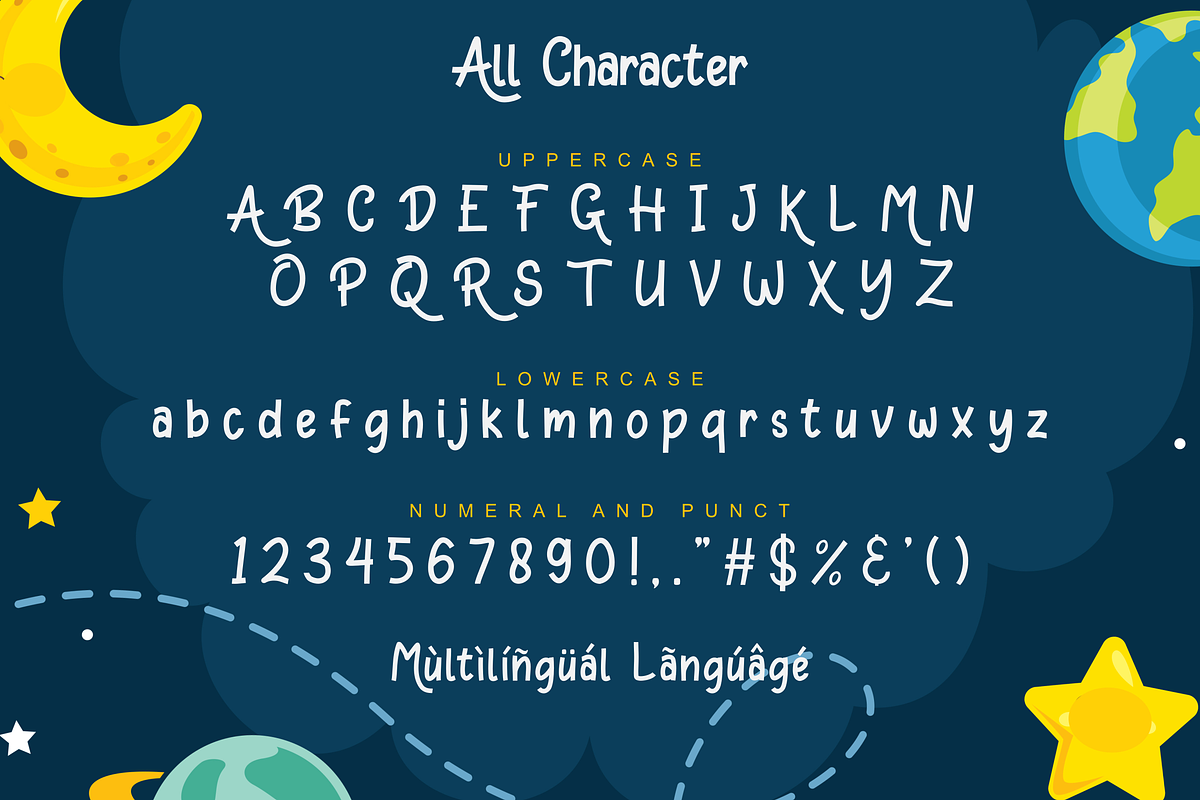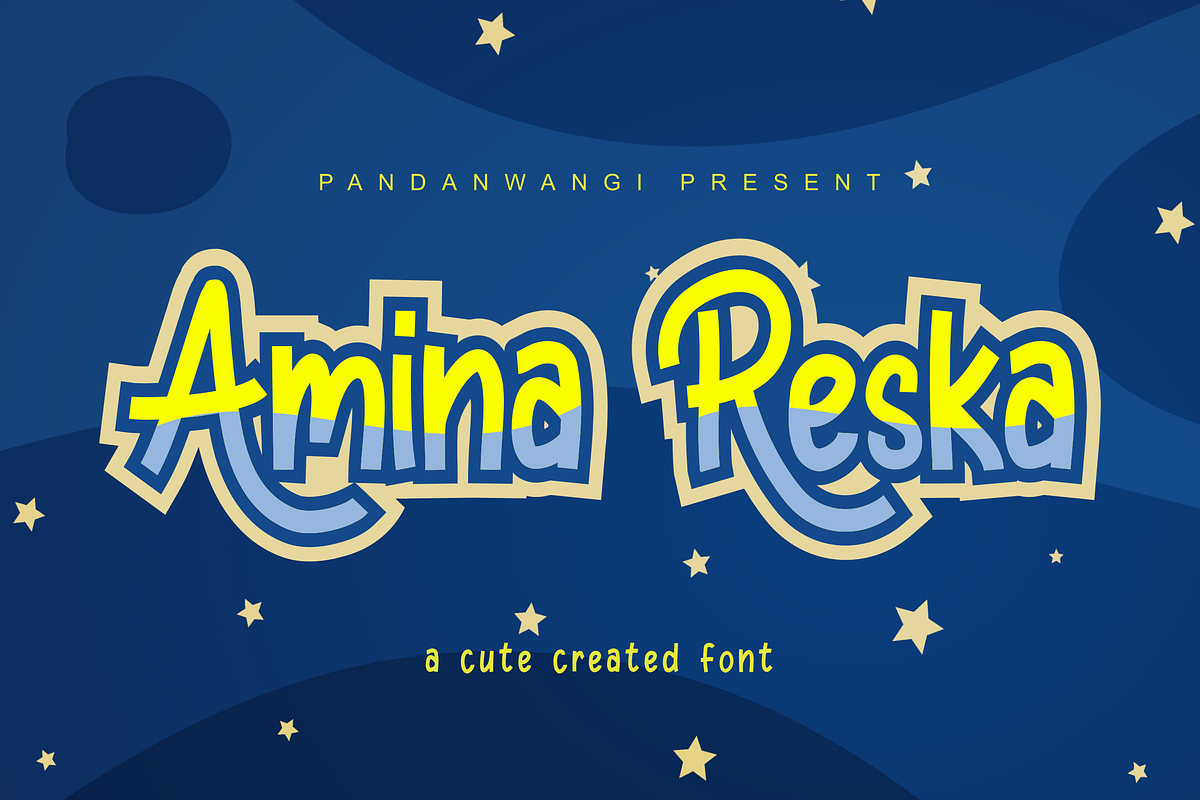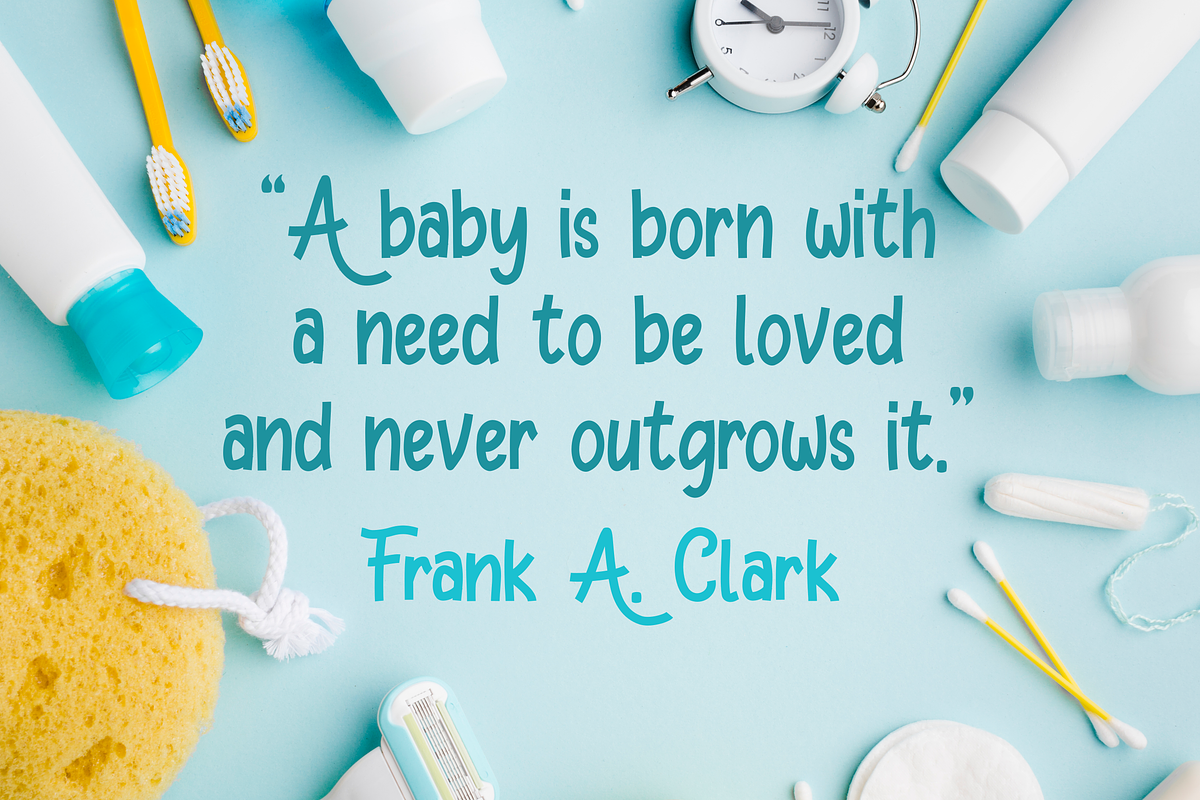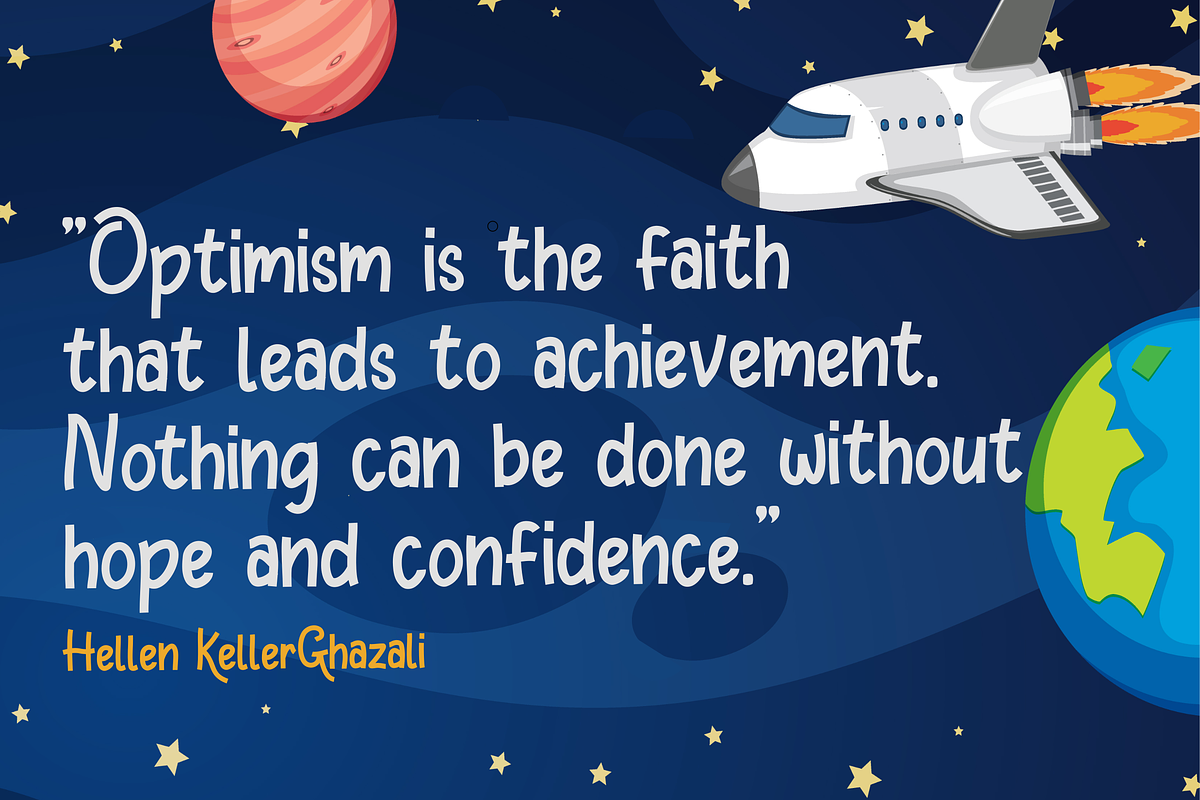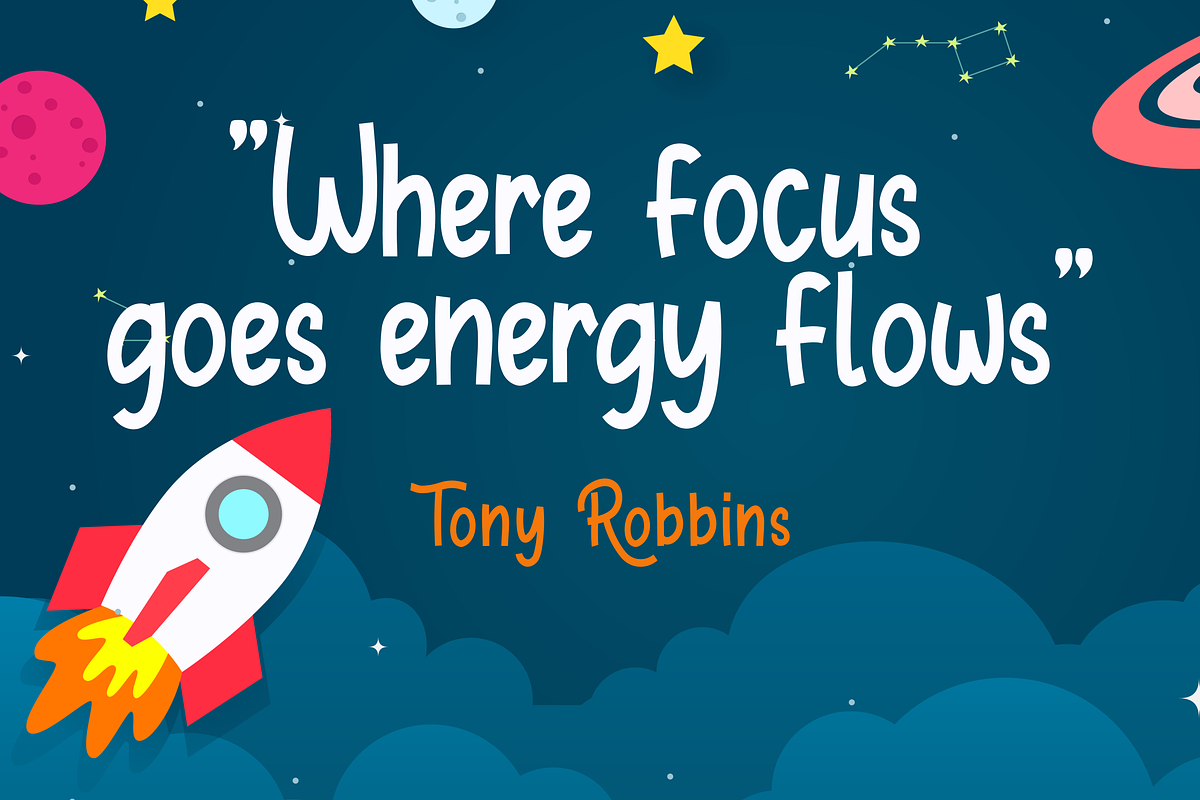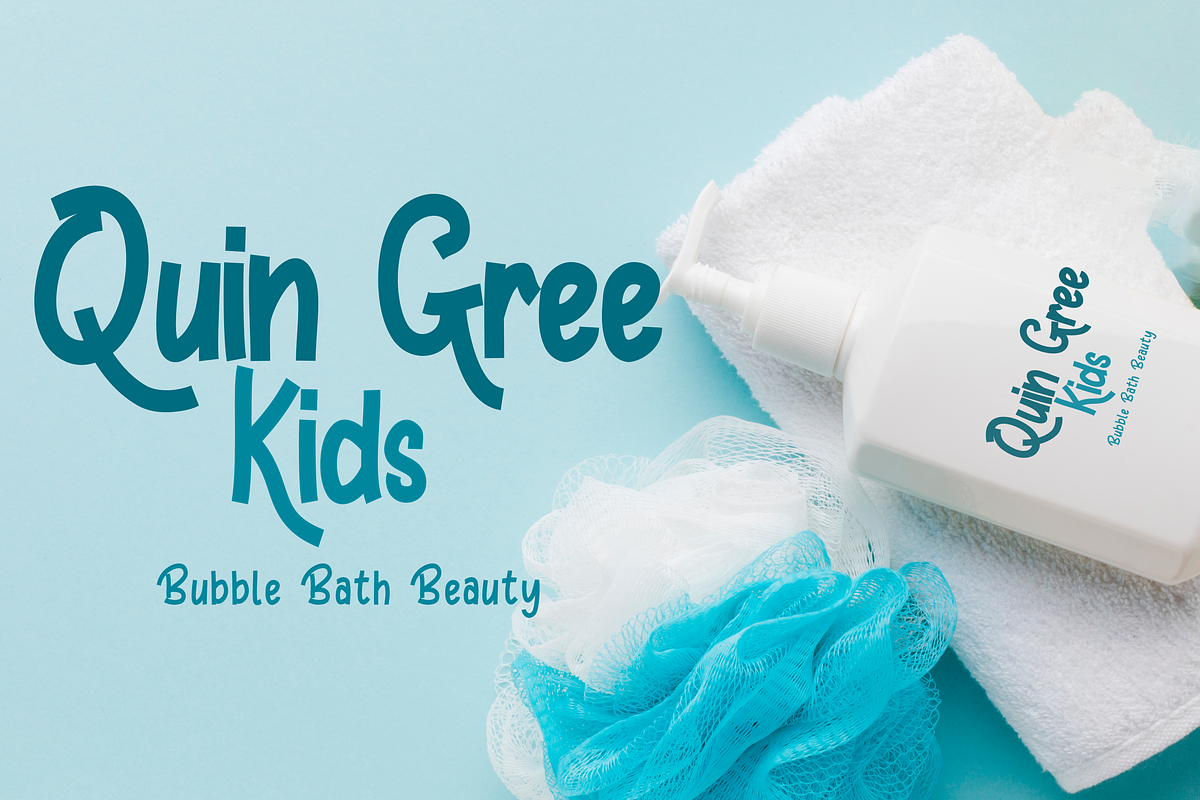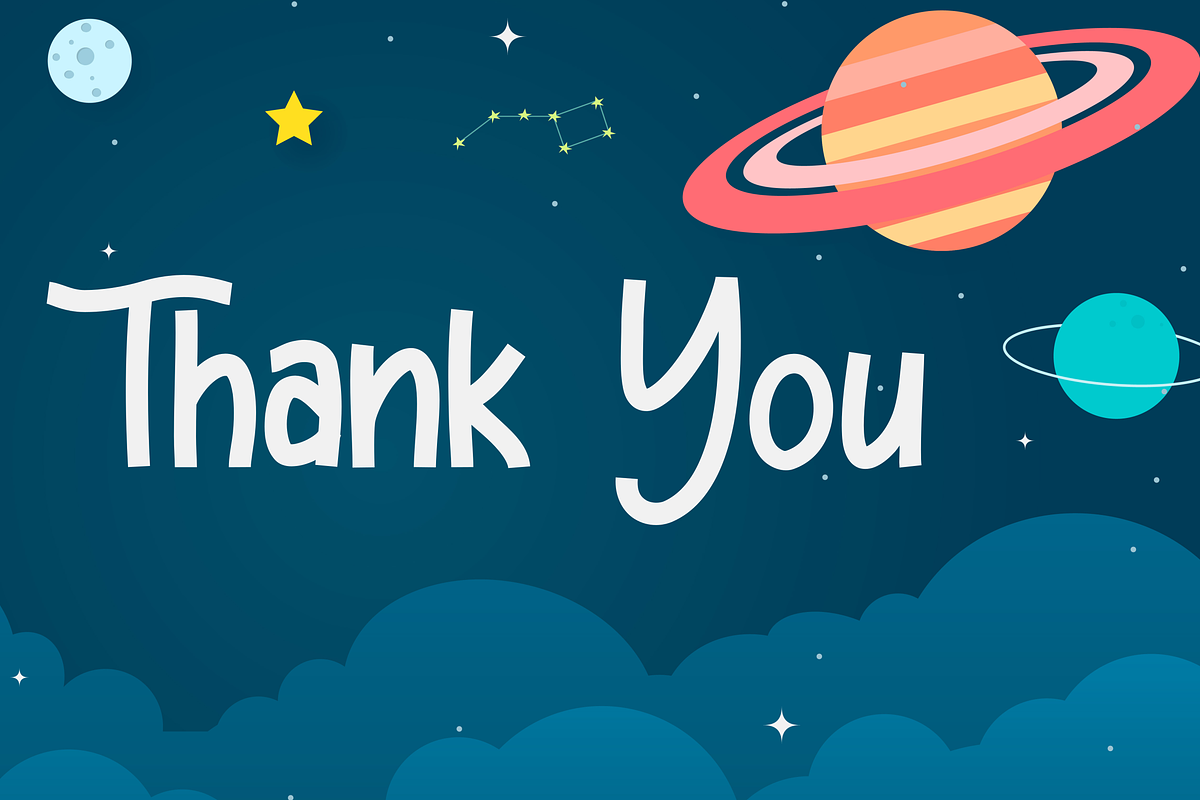
Amina Reska - Cute Fun Display
Amina Reska is a cute, colorful, and friendly display font. Get inspired by its authentic feel and use it to make beautiful wedding invitations, beautiful stationery art, eye-catching social media posts, and cute greeting cards. Add this beautiful display font to your every creative idea and watch how it makes it stand out! The only limit is your imagination!
Uppercase Supports international languages that include numerals, punctuation, multiple headings, alternative styles, and can be accessed in the Adobe Illustrator Glyphs panel, or under Stylistic Alternates in Adobe Photoshop OpenType, Adobe InDesign, Corel Draw, and even works in Microsoft Word. TTF, OTF files.